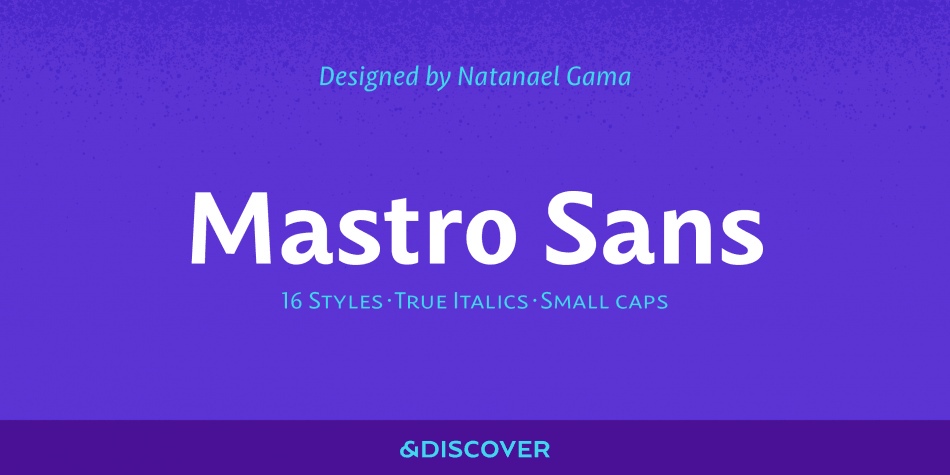
Mastro Sans Font
Mastro Sans Font is perfect for professional service branding, master craftsman identities, skilled trade company communications, artisan workshop materials, technical education presentations, expertise-focused marketing campaigns, mentorship program designs, and authoritative business documentation.
What makes Mastro Sans Font exciting is its commanding embodiment of mastery and professional expertise that communicates skill, knowledge, and authoritative competence through precisely engineered letterforms that reflect years of dedicated practice and refined technique. The font features clean geometric structures with confident proportions that convey the reliability and excellence associated with true masters of their craft. Its professional character and expert appeal make it perfect for organizations that want to communicate mastery, technical expertise, and the trustworthy competence that comes from deep knowledge and proven experience while creating memorable impressions that establish immediate credibility and professional authority.
Mastro Sans Font family includes comprehensive professional weights ranging from Light to Black, typically featuring Regular, Medium, Bold, and Heavy variations with corresponding italic styles. The family often includes condensed versions and professional character sets that provide maximum flexibility for technical documentation, expert presentations, and sophisticated branding applications requiring authoritative typographic hierarchy and professional precision.